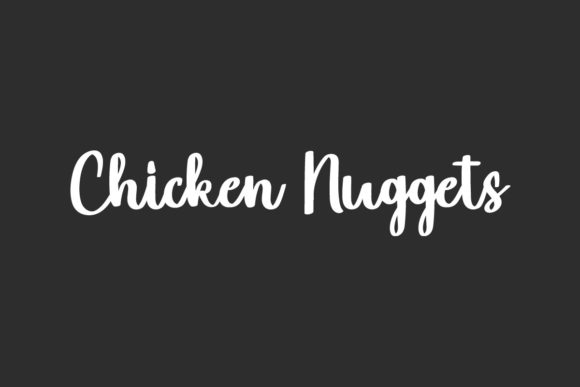
Dive into the world of Chicken Nuggets, a captivating script font family crafted by the skilled hands at Vintype. If you seek a font that exudes charm, sophistication, and a touch of whimsy, then look no further. Chicken Nuggets is a delightful ensemble of characters that will add a sprinkle of luxury to your creative projects.
Imagine words dancing gracefully along the baseline, inviting readers to embark on a visual journey. This font possesses an inherent elegance that elevates any design, whether it be a chic branding project, a heartfelt invitation, or an enchanting social media post. Chicken Nuggets seamlessly adapts to any concept, transforming ordinary words into captivating expressions.
With its PUA encoding, Chicken Nuggets empowers you with the freedom to unlock a treasure trove of glyphs and swashes. Unleash your creativity and effortlessly incorporate artistic embellishments into your designs. Whether you're a seasoned designer or a creative enthusiast, Chicken Nuggets empowers you to craft designs that leave a lasting impression.
So embrace the magic of Chicken Nuggets and embark on a creative journey like never before. Its captivating charm and exquisite details will transform your projects into stunning masterpieces. Let your imagination soar as you experience the limitless potential that lies within this extraordinary font family.